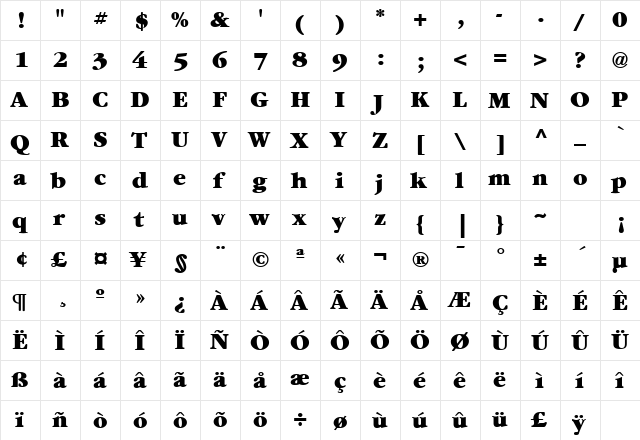
GarryMondrian8 UltraSH
Design Context for GarryMondrian8 Typeface
GarryMondrian8 takes a measured approach to typography — its balanced proportions and neutral character make it a reliable workhorse for both digital and print work.
Pro Tip: Pair GarryMondrian8 with a font of contrasting weight or personality to build a more expressive typographic hierarchy.